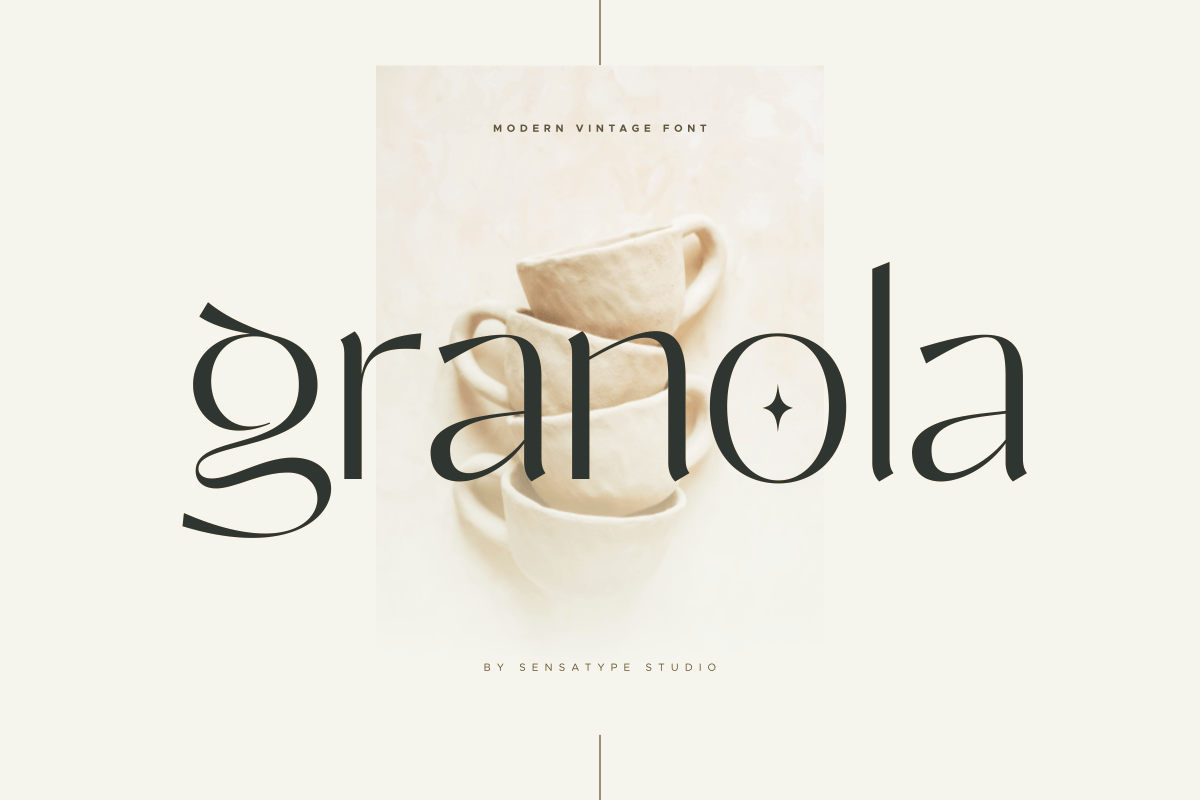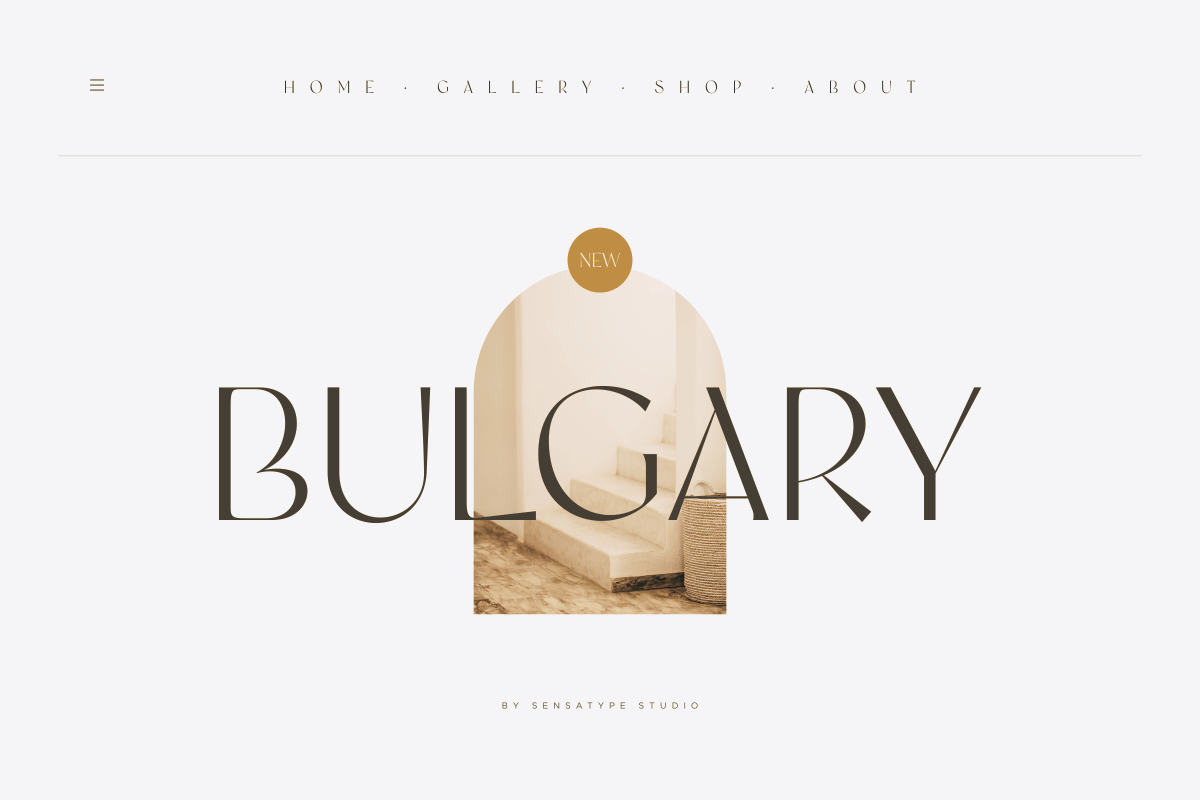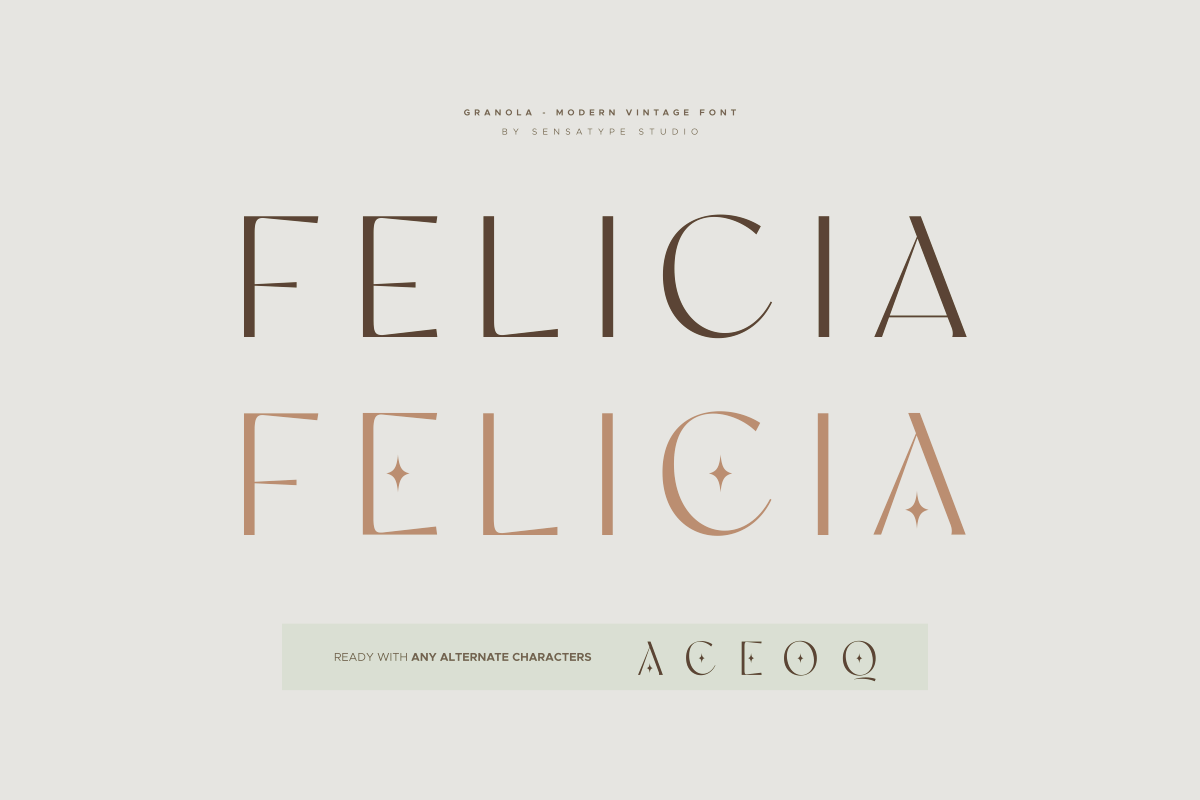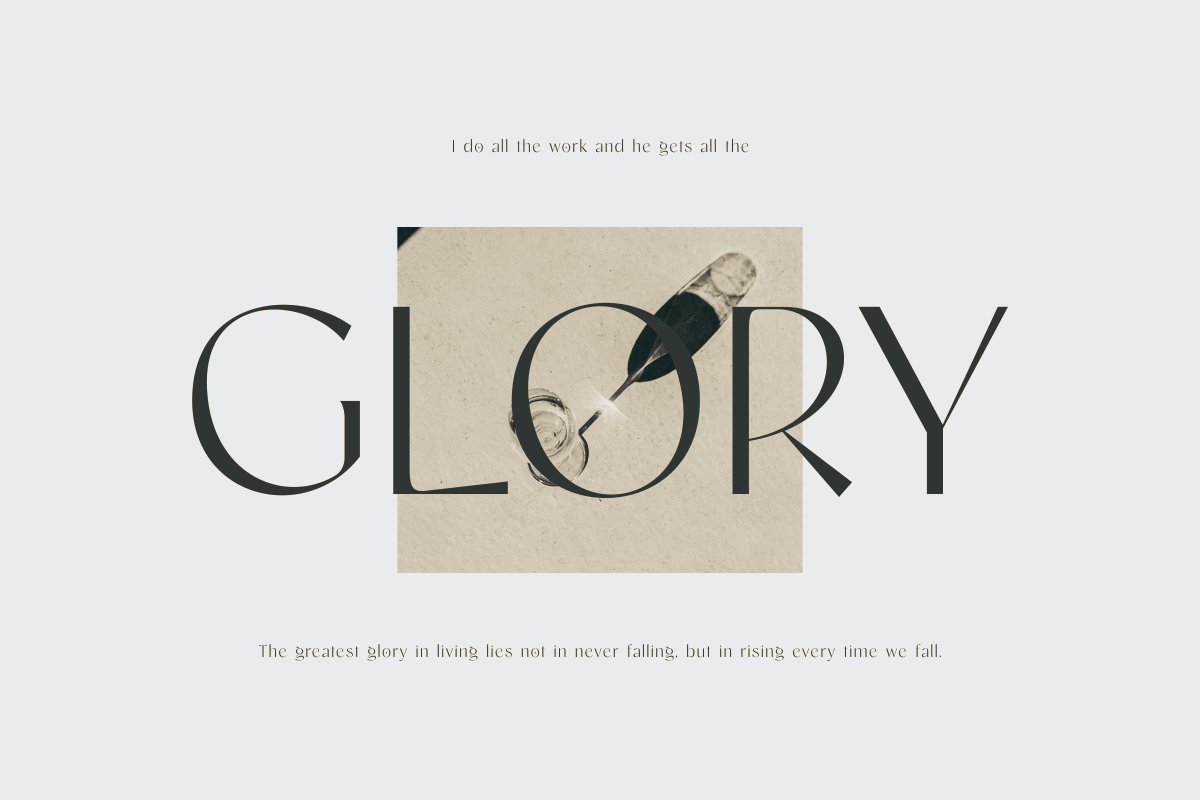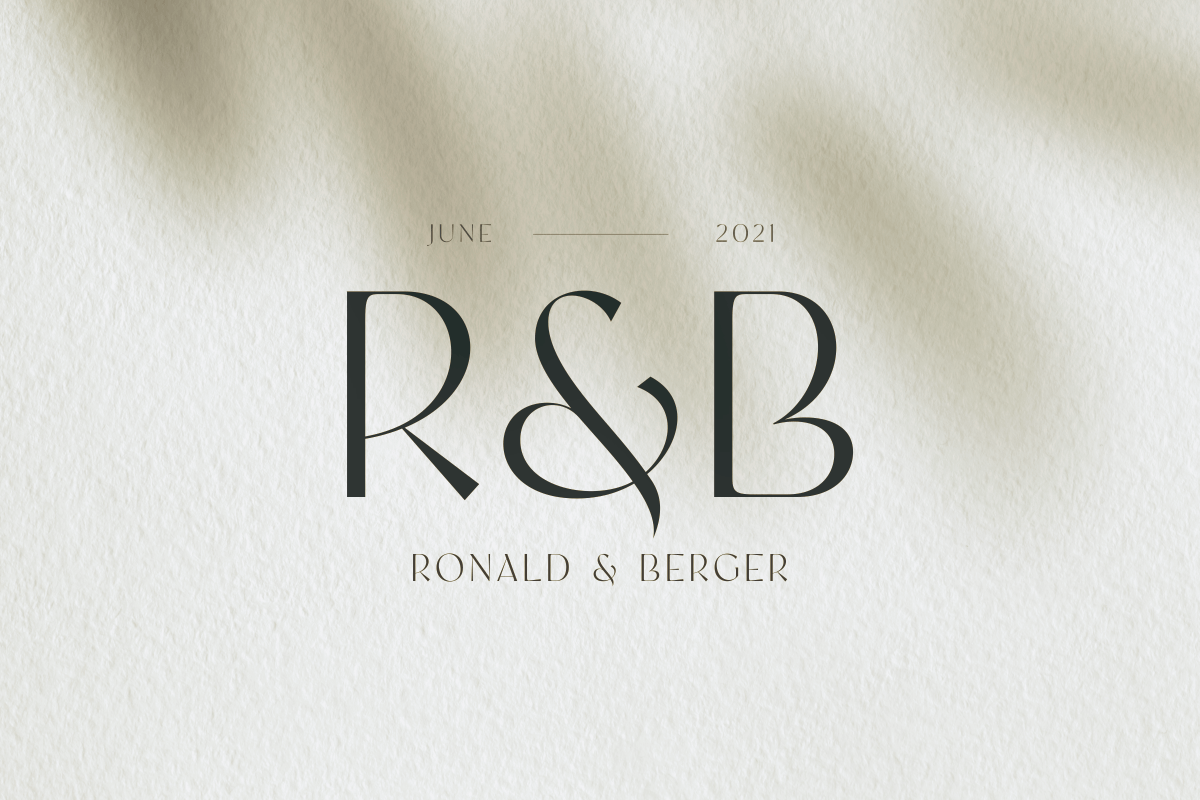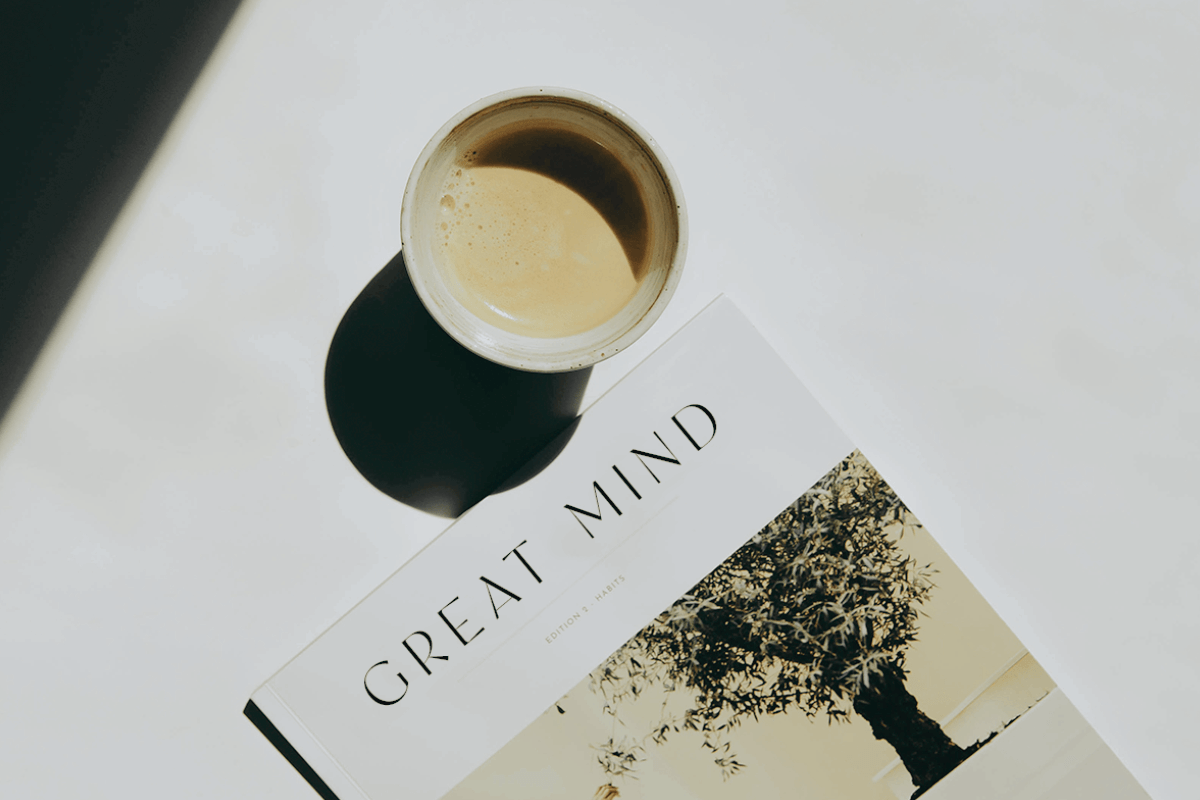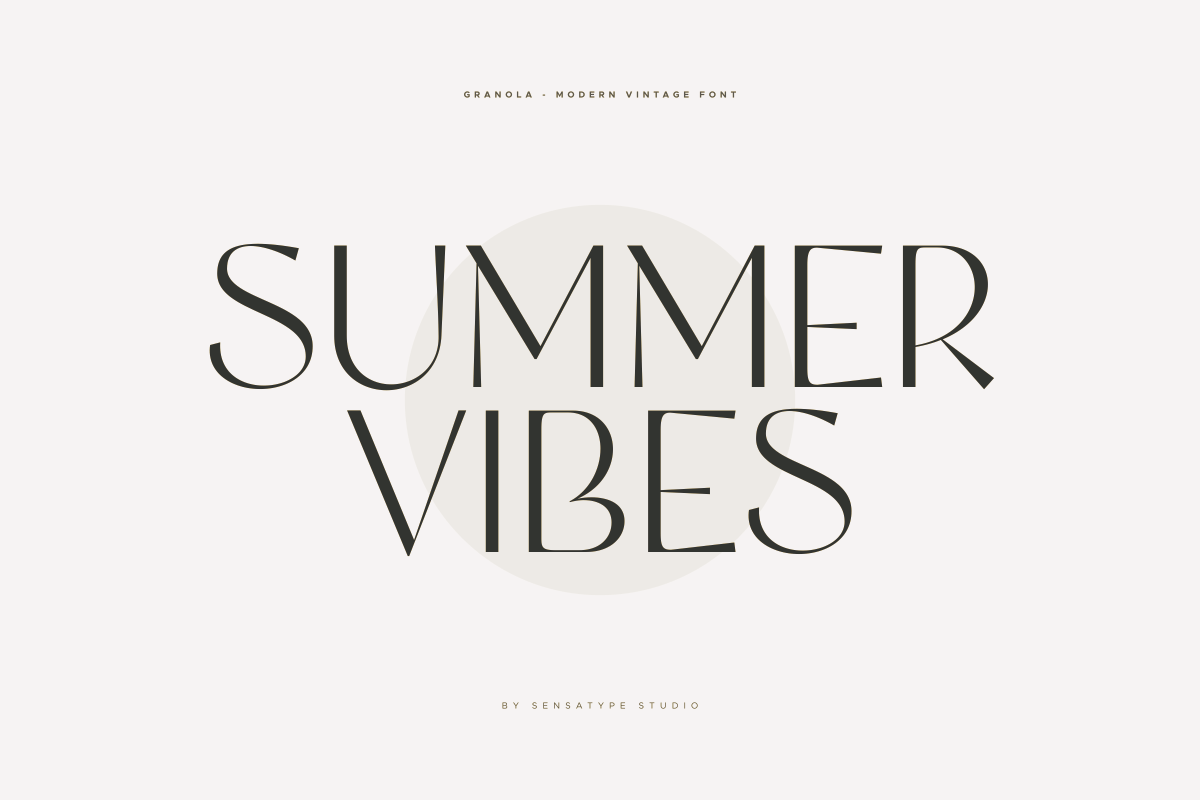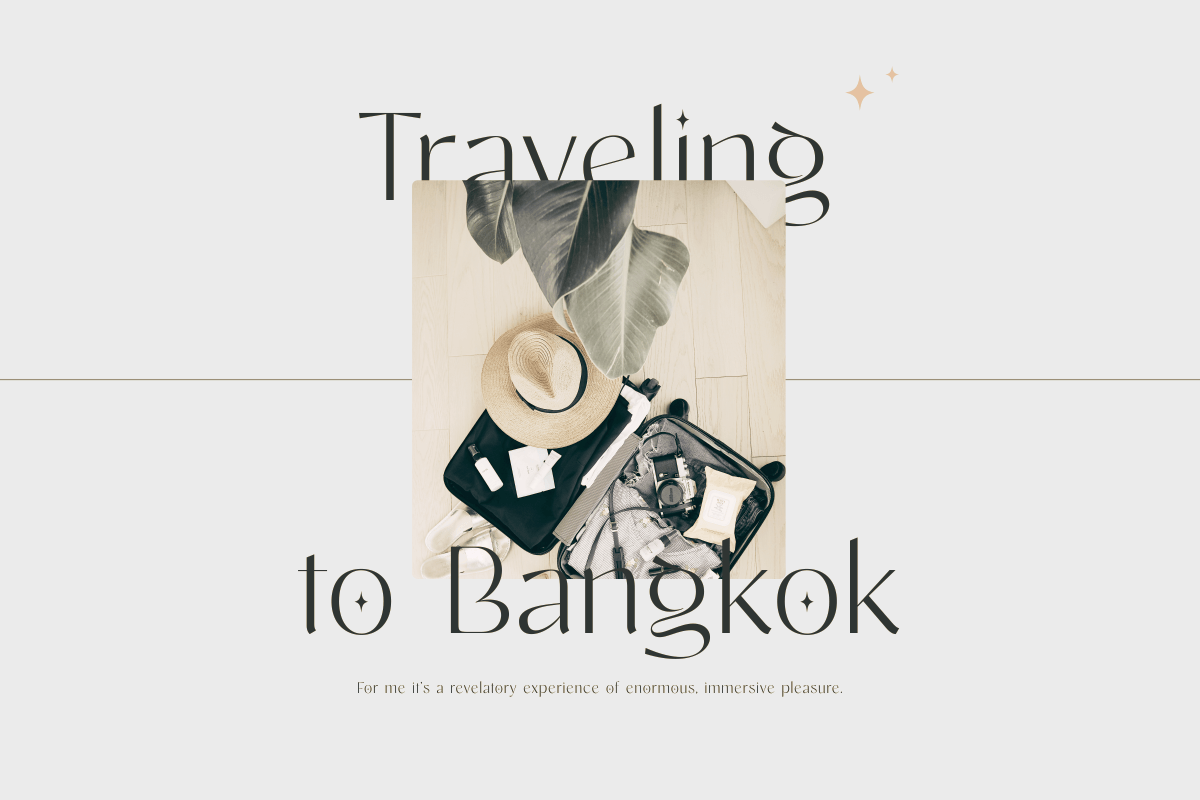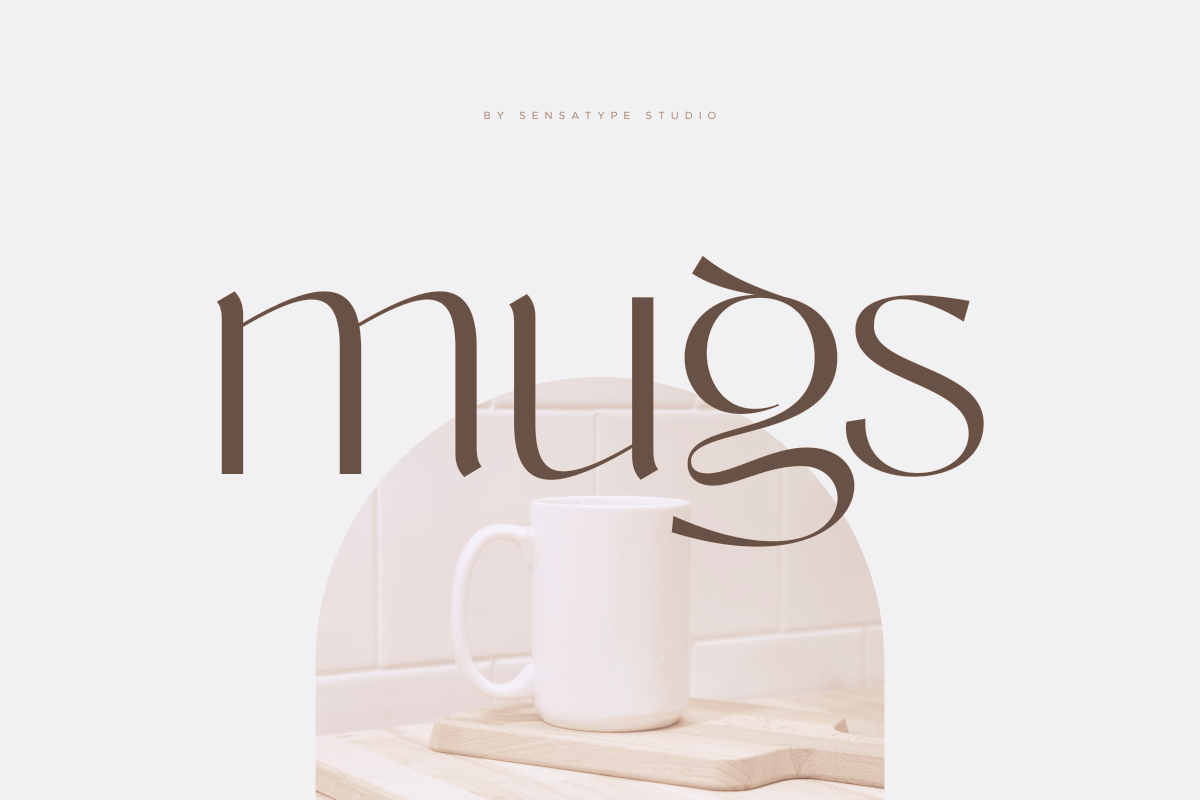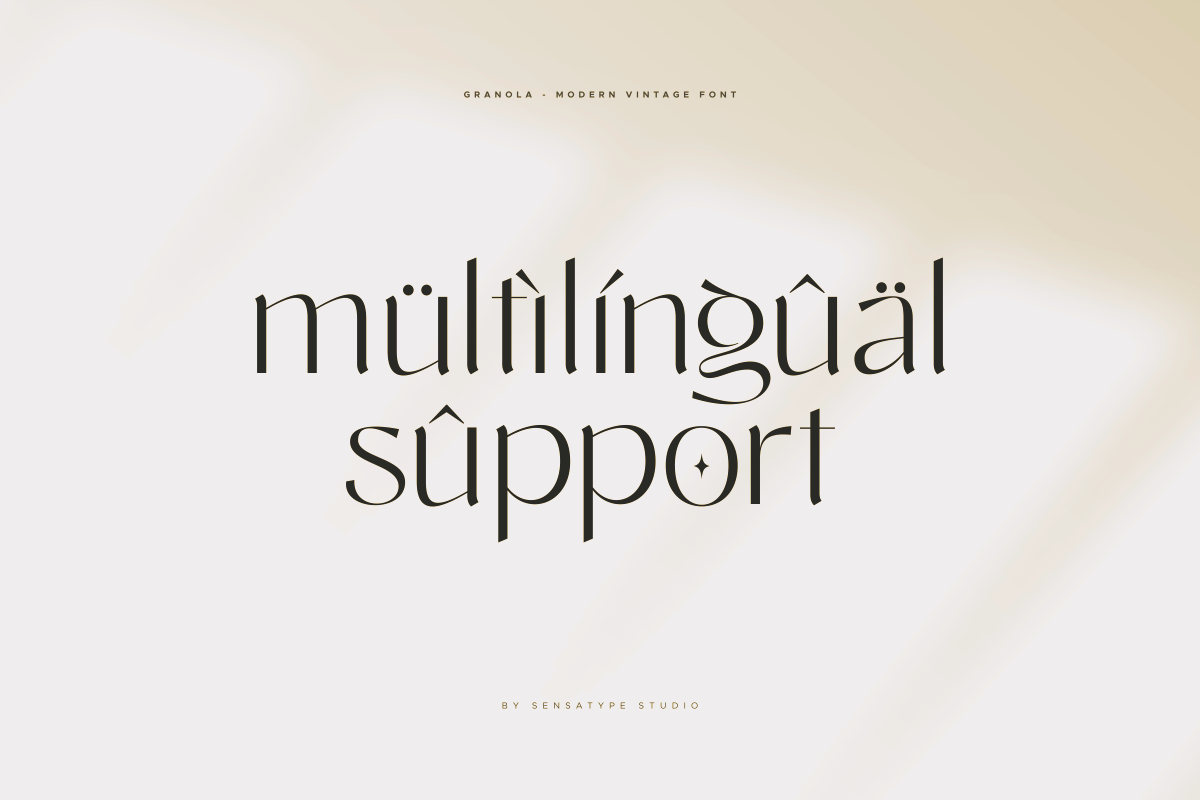
Granola
-Unique Modern Vintage FontGranola - Unique Modern Vintage Font
Granola is a unique modern vintage display font inspired by classic visual styles and cultural design aesthetics. Featuring distinctive letterforms and a nostalgic character, this typeface brings a creative and memorable personality to modern designs.
Perfect for vintage branding, logo design, magazine layouts, posters, social media graphics, business cards, packaging, and editorial projects. Granola helps designers create unique visual identities with a balance between retro inspiration and contemporary style.
With its display characteristics and unique typography details, Granola is a versatile font choice for projects that need a bold, artistic, and vintage-inspired appearance.
- Uppercase and lowercase characters
- Numbers and punctuation
- Multilingual support